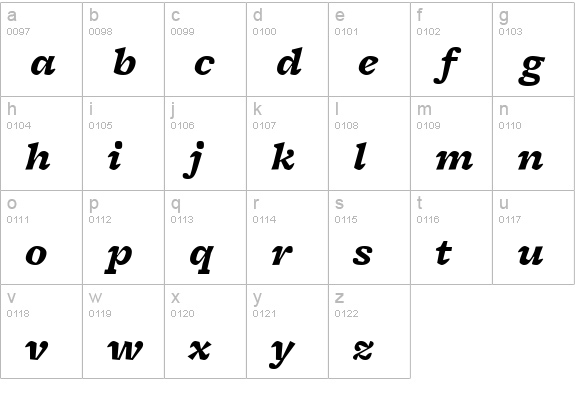
FreightMicro BlackItalic is a modern and stylish typeface that exudes sophistication and elegance. With its sleek lines and bold curves, this font is perfect for adding a touch of class to any design project. The sleek italic style of FreightMicro BlackItalic adds a contemporary flair that is sure to make a statement. What makes FreightMicro BlackItalic even more appealing is that it is available for free download at FontsMarket.com. This means you can easily access this high-quality font without any cost, making it a great choice for designers and creatives looking to elevate their work without breaking the bank. Whether you're working on a branding project, website design, or any other creative endeavor, FreightMicro BlackItalic is a versatile font that will enhance your work with its modern and sophisticated aesthetic. Download it for free today and take your designs to the next level!